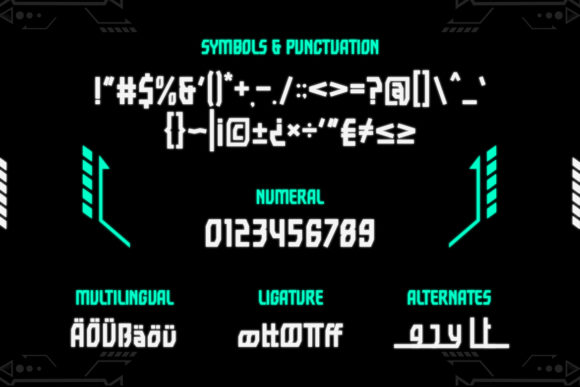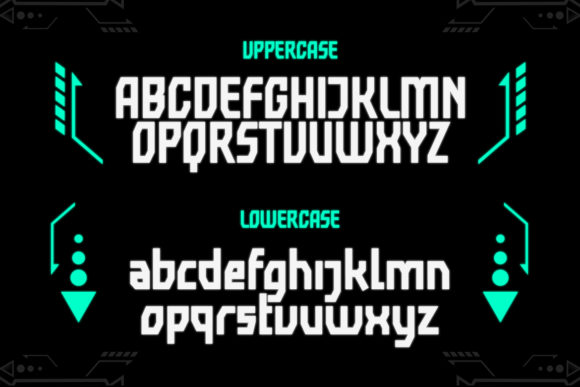
Exton Font
Exton Font is a cool and adaptable display font. This font is suitable for designs such as t-shirts, sportswear, posters, logos, advertisements, clothing, and more.
Exton Font is a cool and adaptable display font. This font is suitable for designs such as t-shirts, sportswear, posters, logos, advertisements, clothing, and more. Whatever the topic, this font will be a great asset to your font collection, as it has the potential to enhance any creation.